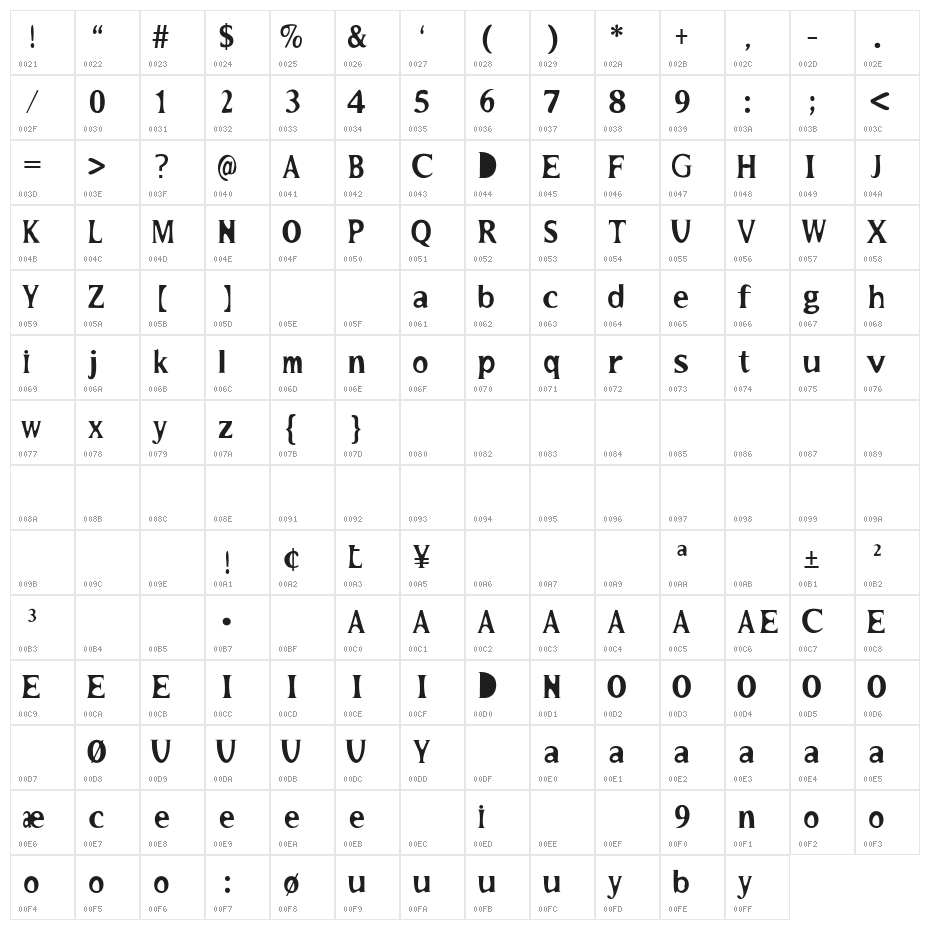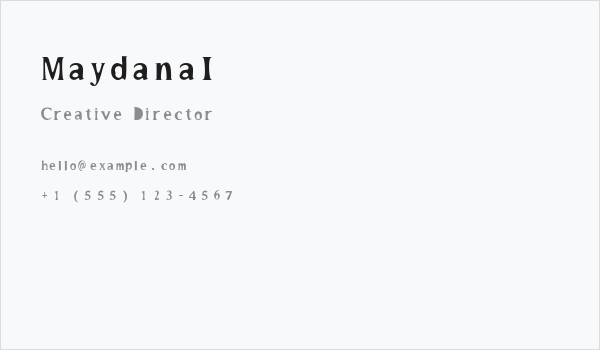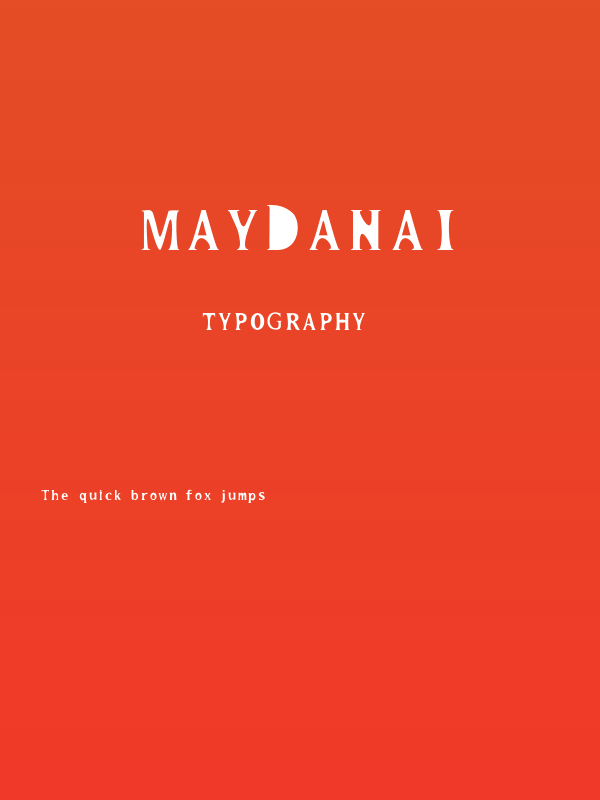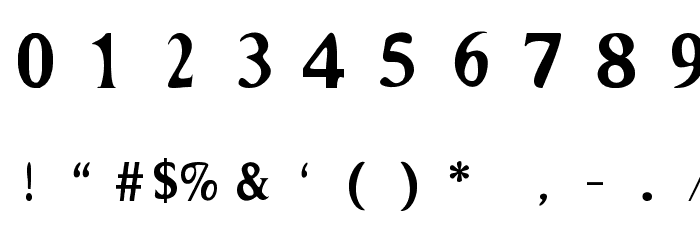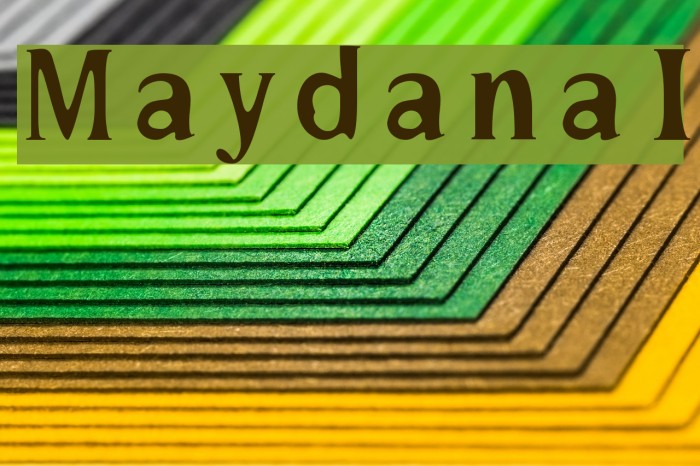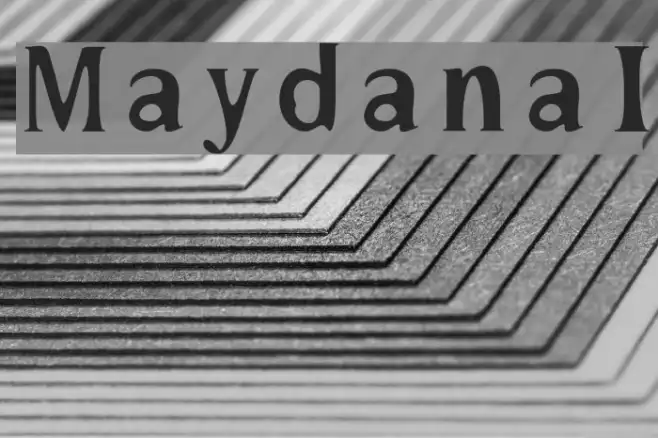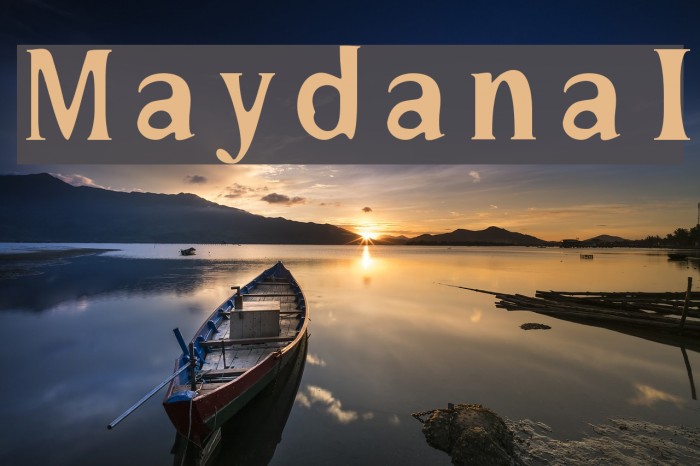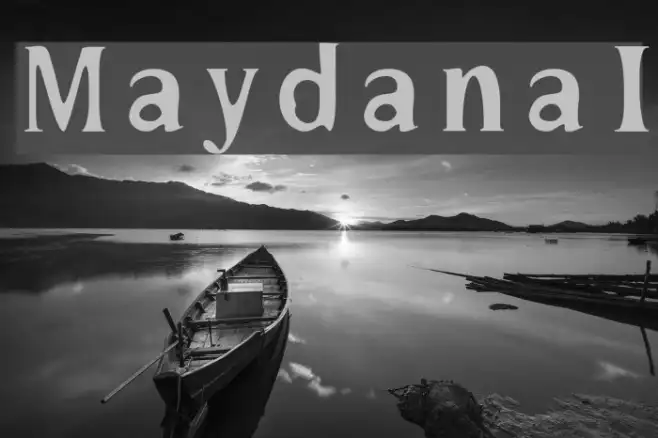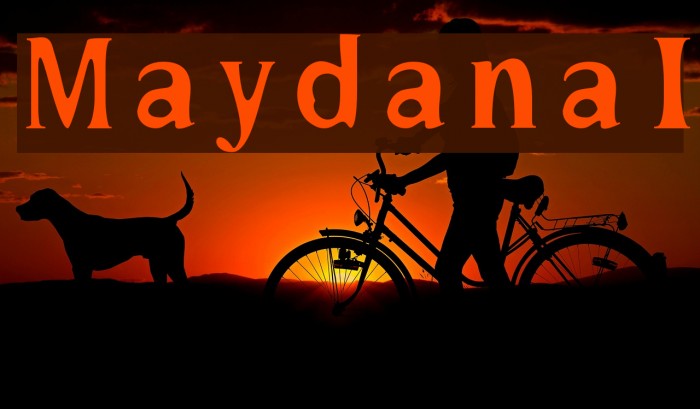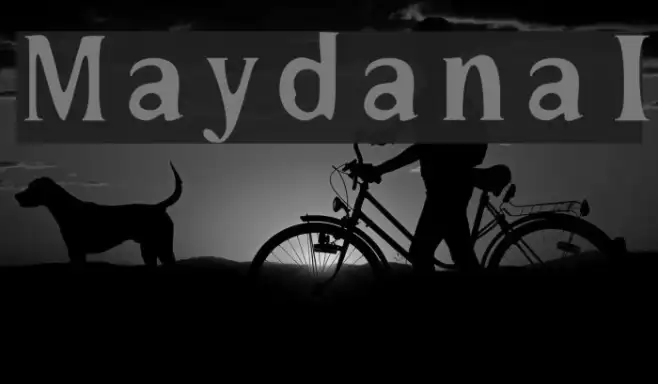
MaydanaI Font
MaydanaI Description
This font features a bold and dynamic style with high contrast between thick and thin strokes. The uppercase letters are characterized by sharp serifs and a strong presence, while the lowercase letters maintain a consistent flow with slightly rounded edges. The numerals are distinct and easy to read, with a classic touch that complements the overall design. Special characters are well-integrated, maintaining the font's unique aesthetic. This typeface exudes a sense of authority and elegance, making it suitable for various design applications.
| Proposed Projects | Ideal for branding, editorial design, book covers, and luxury product packaging. |